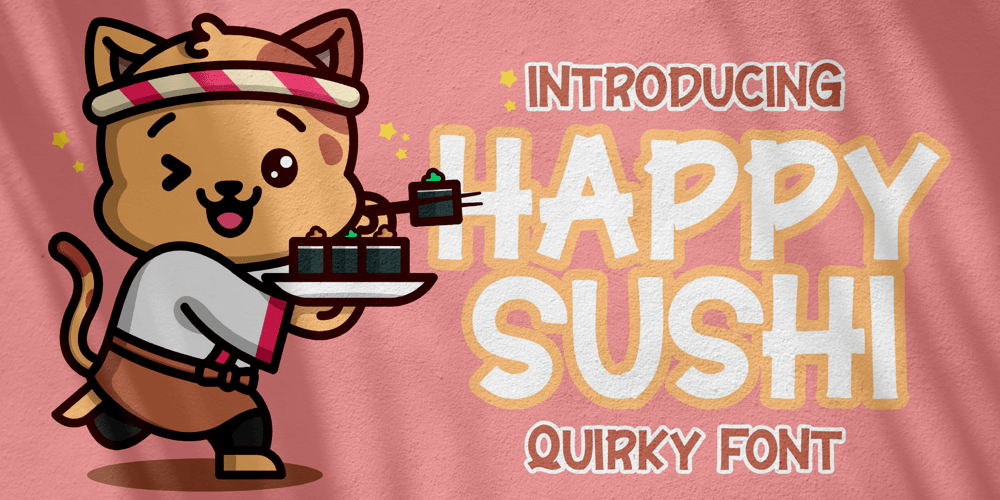
Happy Sushi
Happy Sushi font
Happy Sushi Font Family was designed by Dimas Alif Maulana and published by Integritype. Happy Sushi contains 2 styles and family package options. Happy Sushi is a fun, playful and relaxed display font. It embodies sweetness and authenticity and is the perfect choice for any children activity or school project.